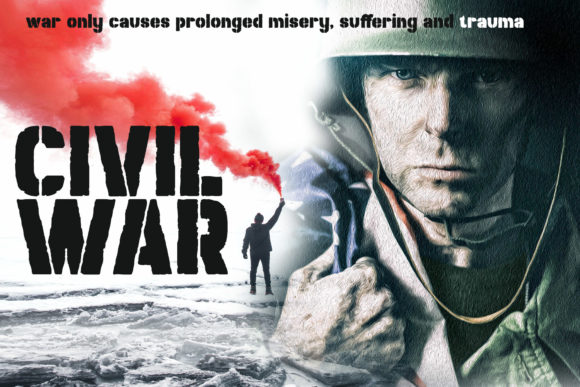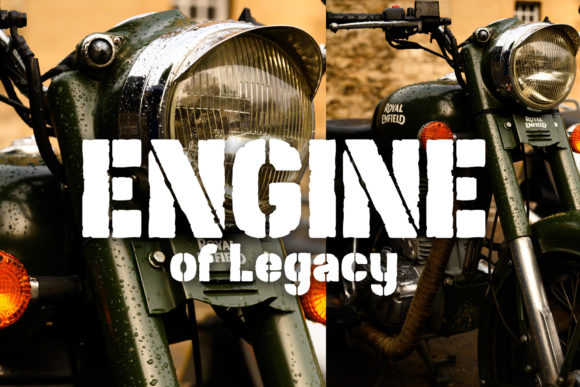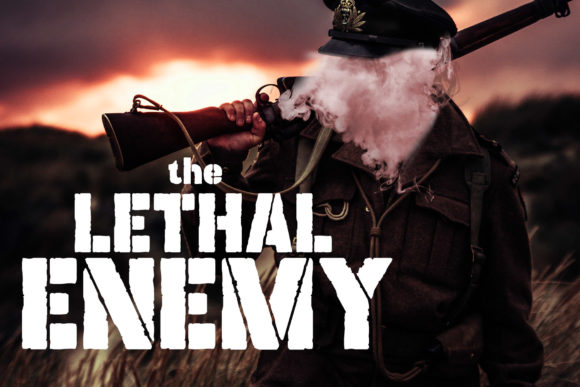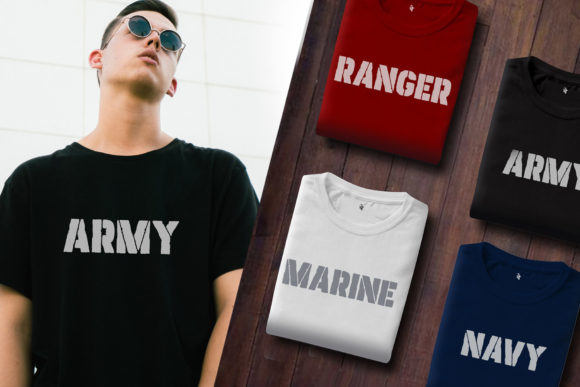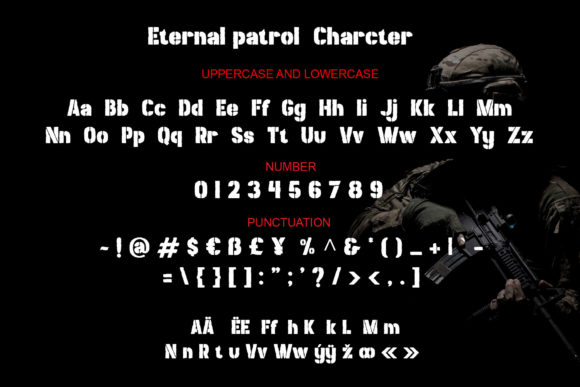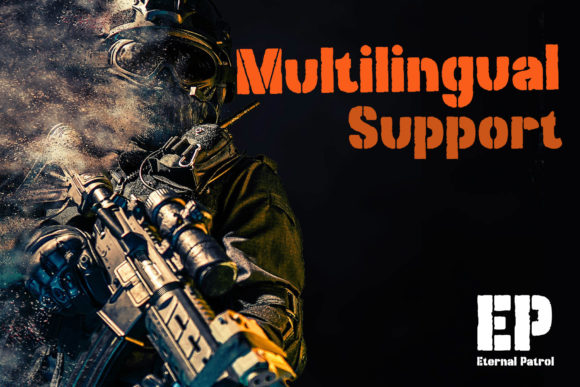
Eternal Patrol Font: Elevate Your Urban and Street Art Designs with a Bold, Thick Lettered Display Font
Are you a designer or crafter looking for a font that can add a touch of edginess and coolness to your urban or street art designs? Look no further than the Eternal Patrol font. This bold, thick lettered display font is perfect for creating eye-catching and impactful designs that are sure to stand out from the crowd.
What is Eternal Patrol Font?
Eternal Patrol is a rough textured font that is designed to give your designs a rugged and urban feel. With its bold and thick letters, this font is perfect for creating attention-grabbing headlines, titles, and slogans. The rough texture of the font adds a layer of depth and character to your designs, making them look more realistic and authentic.
Key Features of Eternal Patrol Font
- Bold and Thick Letters: The Eternal Patrol font features bold and thick letters that are perfect for creating eye-catching designs.
- Rough Textured: The font has a rough textured look that adds a layer of depth and character to your designs.
- Cool Display Font: Eternal Patrol is a cool display font that is perfect for creating urban and street art designs.
How to Use Eternal Patrol Font in Your Designs
Using the Eternal Patrol font in your designs is easy. Here are a few tips to get you started:
- Pair it with Other Fonts: Pair the Eternal Patrol font with other fonts to create a unique and interesting contrast.
- Use it for Headlines and Titles: Use the font for headlines and titles to create eye-catching and attention-grabbing designs.
- Add Texture and Patterns: Add texture and patterns to your designs to give them a more urban and street art feel.
Benefits of Using Eternal Patrol Font
There are many benefits to using the Eternal Patrol font in your designs. Here are a few:
- Stand Out from the Crowd: The Eternal Patrol font is unique and eye-catching, making it perfect for designers who want to stand out from the crowd.
- Easy to Read: Despite its bold and thick letters, the font is easy to read, making it perfect for designs that require a clear and concise message.
- Versatile: The Eternal Patrol font is versatile and can be used in a variety of designs, from urban and street art to posters and flyers.
Who Can Use Eternal Patrol Font?
The Eternal Patrol font is perfect for a variety of designers and crafters, including:
- Graphic Designers: Graphic designers can use the Eternal Patrol font to create eye-catching and attention-grabbing designs for their clients.
- Street Artists: Street artists can use the font to create bold and edgy street art that stands out from the crowd.
- Crafters: Crafters can use the font to create unique and personalized designs for their crafts, such as handmade cards and gift tags.
In conclusion, the Eternal Patrol font is a bold, thick lettered and cool display font that is perfect for urban and street art designs. With its rough textured look and easy-to-use design, this font is sure to elevate your designs and make them stand out from the crowd. Whether you’re a graphic designer, street artist, or crafter, the Eternal Patrol font is a great addition to your font collection.